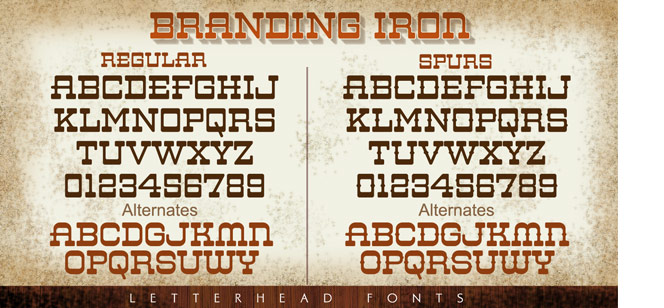
LHF Branding Iron
Imagine you are a sign-painter, you draw letters with flat brush trying to keep 0 degrees – now you are about to understand what is the LHF Branding Iron font about. It’s a classic Western typeface, refined in attractive contemporary way – simple and smooth geometry, perfect balance between thin stems and wide fat serifs, specific roundness that somehow moves us to the digital era making the overall look more stylish and of course modern. Additionally you will find a spurred version of the original typeface which also very attractive and even more typical for the western typefaces. So in general, if you want to move to Wild West and make your own signboard, Branding Iron is one of the best choices. Enjoy this typeface by Letterhead Fonts and use it for t-shirts, book covers, titles, packaging and logos. LHF Branding Iron is inspired by Alf R. Becker. Patrick Kalange has reimagined this classic 1930’s Western style font and published it for Letterhead Fonts. Follow the links and find more classic typefaces reviving old times.